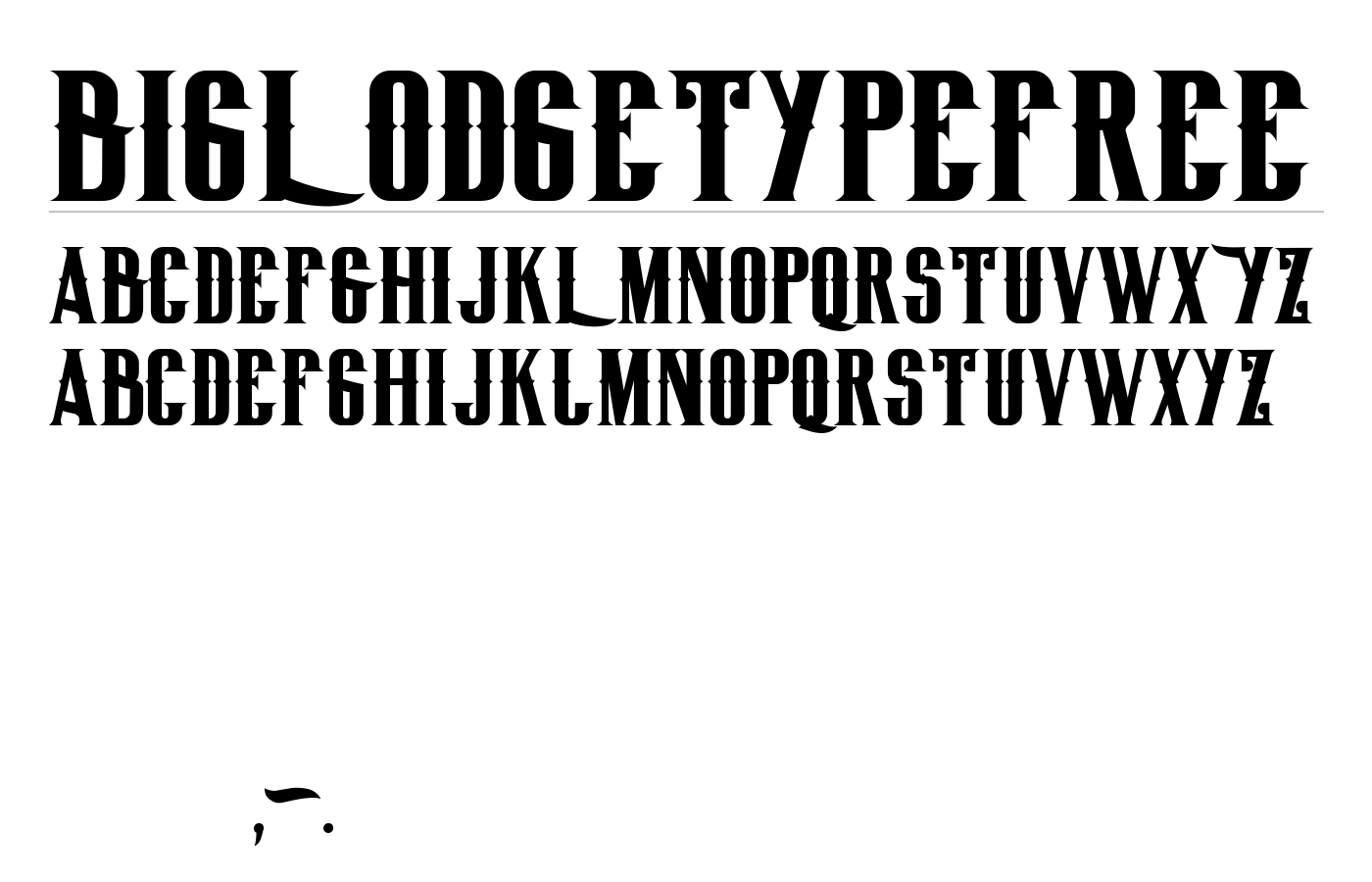
BigLodgeTypeFree is a bold, condensed serif font with strong, sharp edges and high contrast between thick and thin strokes, evoking a vintage, western-style feel. Its tall, narrow letterforms with unique flared serifs and ornamental details give it a striking, authoritative presence, making it ideal for headlines, logos, and posters that need a bold and classic statement. This font works well for brands or projects seeking to convey rugged elegance, heritage, or a retro vibe.
BigLodgeTypeFree Font
About BigLodgeTypeFree Font
| Font family | BigLodgeTypeFree Font |
| Designer | AlterDeco Type Foundry |